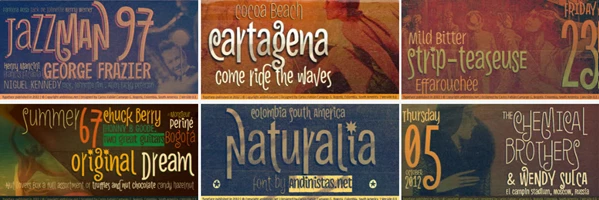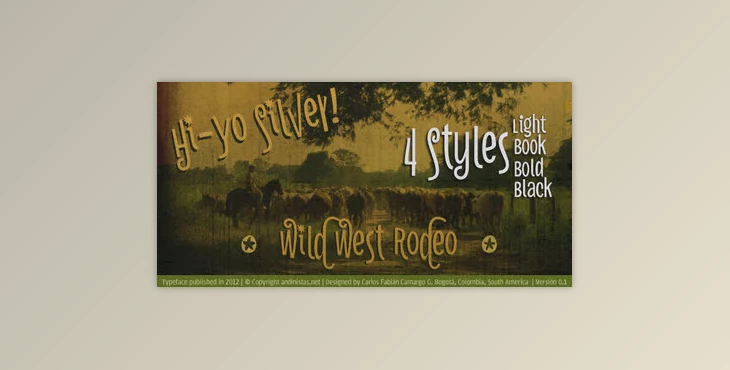
Naturalia Font Family is an ultra-narrow, spontaneous, swirling handwriting alphabet designed by Carlos Fabián Camargo in 2012. It's good for short bursts of communication and is easy to read despite an asymmetrical but simple glyph construction. It has a vertically compressed design where lower and upper case letters are highly condensed. The lowercase letters have shorter ascenders and descenders and are condensed with a width that provides an effective horizontal appearance. Combined with a monolinear thick and thin differentiation and sans serif terminals, the visual cadence is enticing.
Naturalia encompasses arrhythmic spaces and various thicknesses that resemble hand-drawn, naive letters, which make it a great choice for attention-grabbing graphic materials in advertising, culture, and entertainment. With natural letters like these, Naturalia is a spontaneous typeface with OpenType features like "Swash" and "Titling" that act as both embellishment and motion to the baseline. The naive/natural idea behind Naturalia connects both types of styles to create an impressive reading experience with folk origins. Although better for shorter sentences, this type family features Light, Book, Bold, and Black styles. Each "Pro" version offers 350 glyphs featuring OpenType features like Swash, Titling, and Standard Ligatures. Even without a full range of OpenType opportunities, Naturalia remains feasible with styles of emphasis for hierarchy.
The Naturalia Black version carries its own personality - naturally rounded outlines with the edges of frames appearing zig-zag cut, which looks like black paper cut with white letters - so it would make a nice addition to anything special.